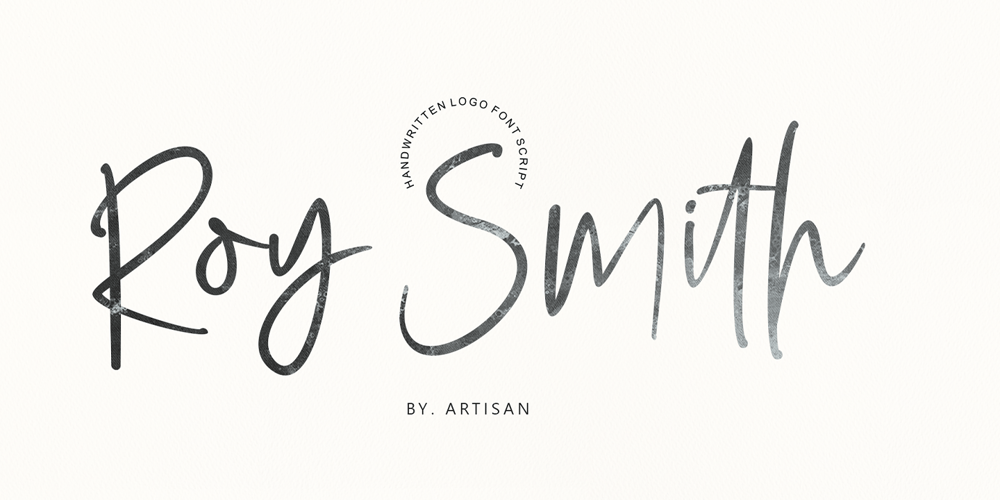
Roy Smith Font Family was designed by Roiyani Teungku and published by Artisan Studio. Roy Smith contains 1 styles and family package options. Roy Smith a work that is purely handmade, has its own characteristics with the style of monoline. this is perfect for invitations, signatures, blogs, social media, business cards, product brands.Roy Smith has Stylistic standard, Stylistic Alternate, Stylistic ligatures. and includes uppercase and lowercase letters, numbers and punctuation marks.FILE INCLUDERoy Smith (OpenType,PUA)OpenType features can be accessed by using OpenType smart programs such as Adobe Photo Shop, Adobe Illustrator, Adobe Indesign, Corel Draw and Microsoft Office.special greetings for all, all of us all smoothly in running the routin